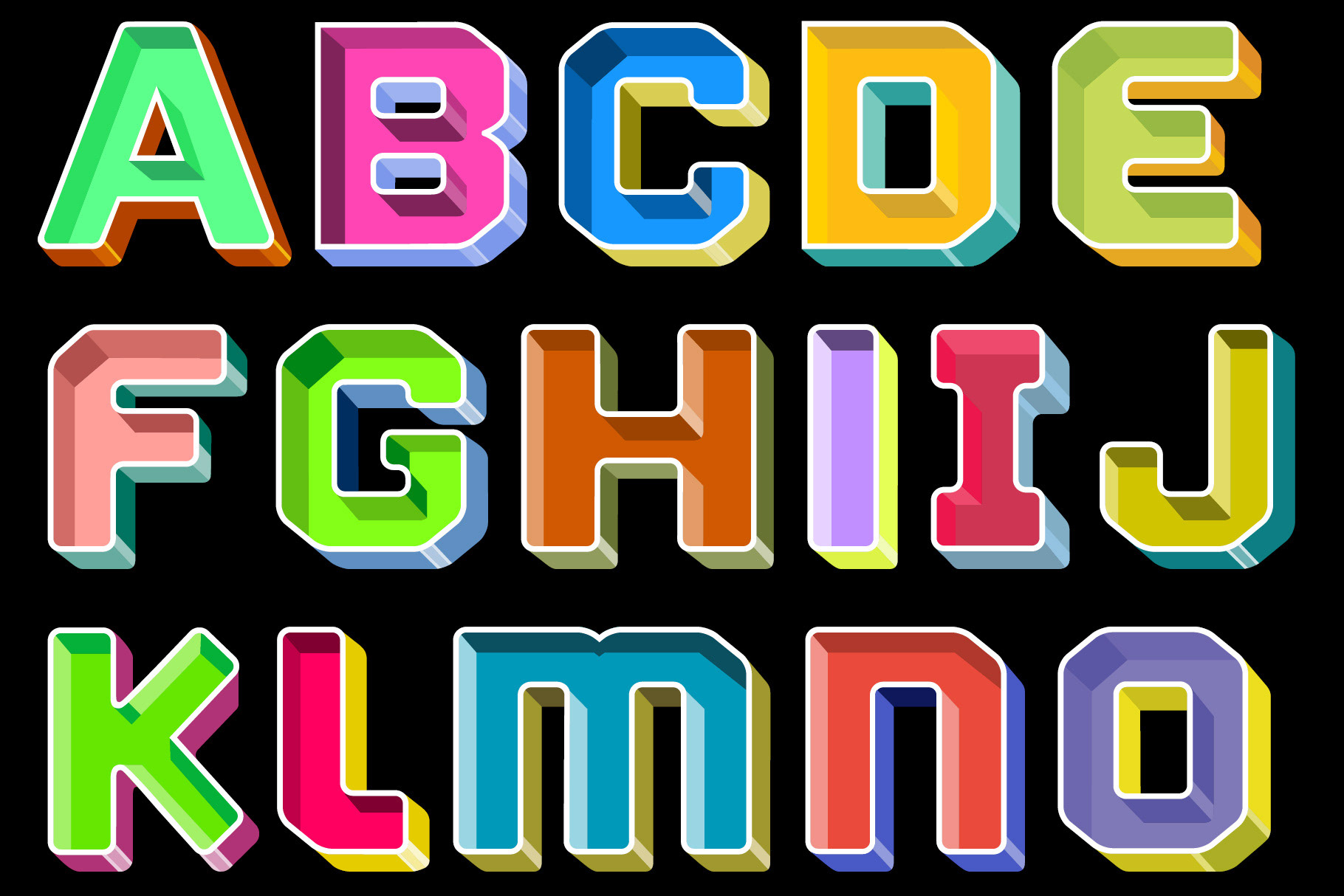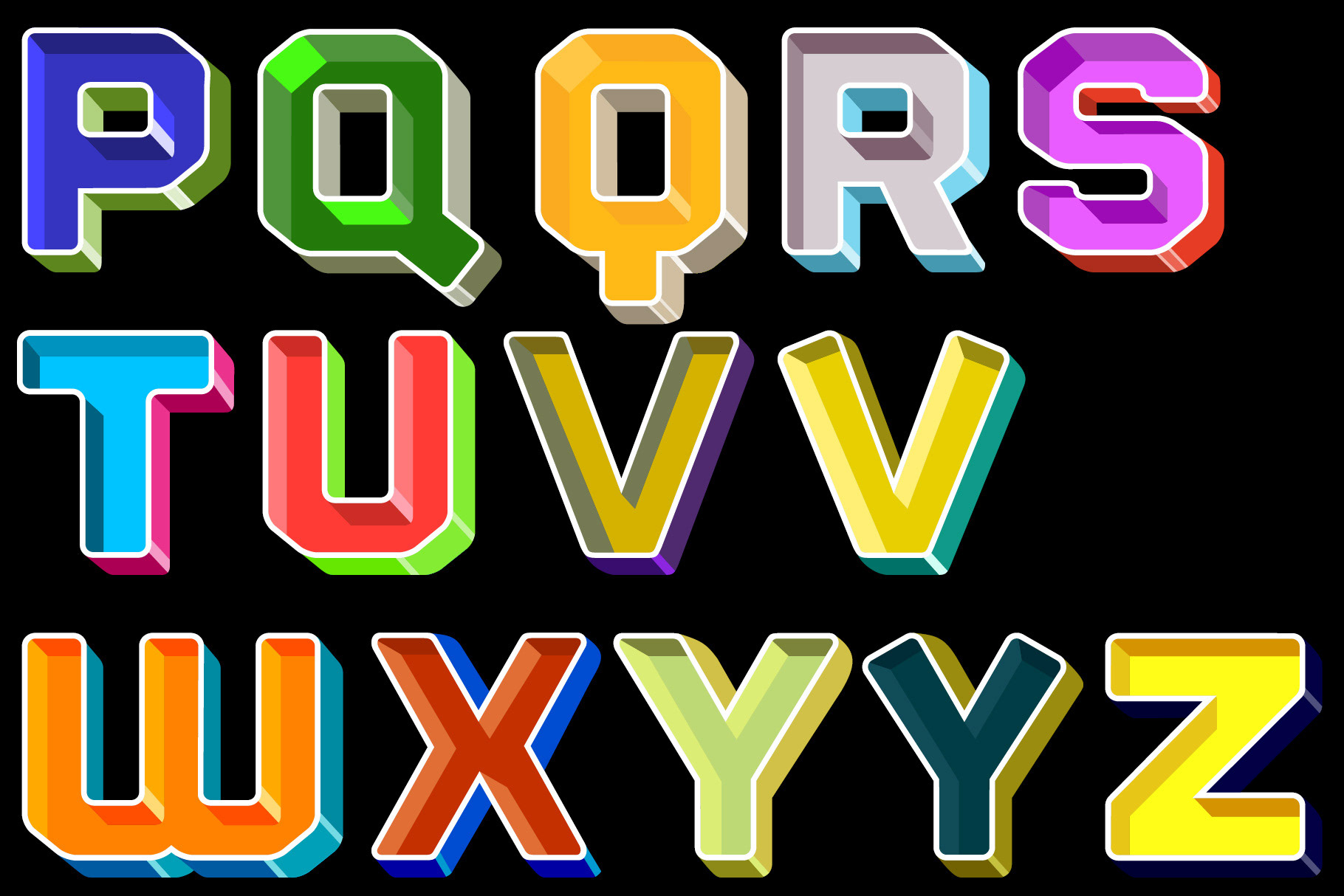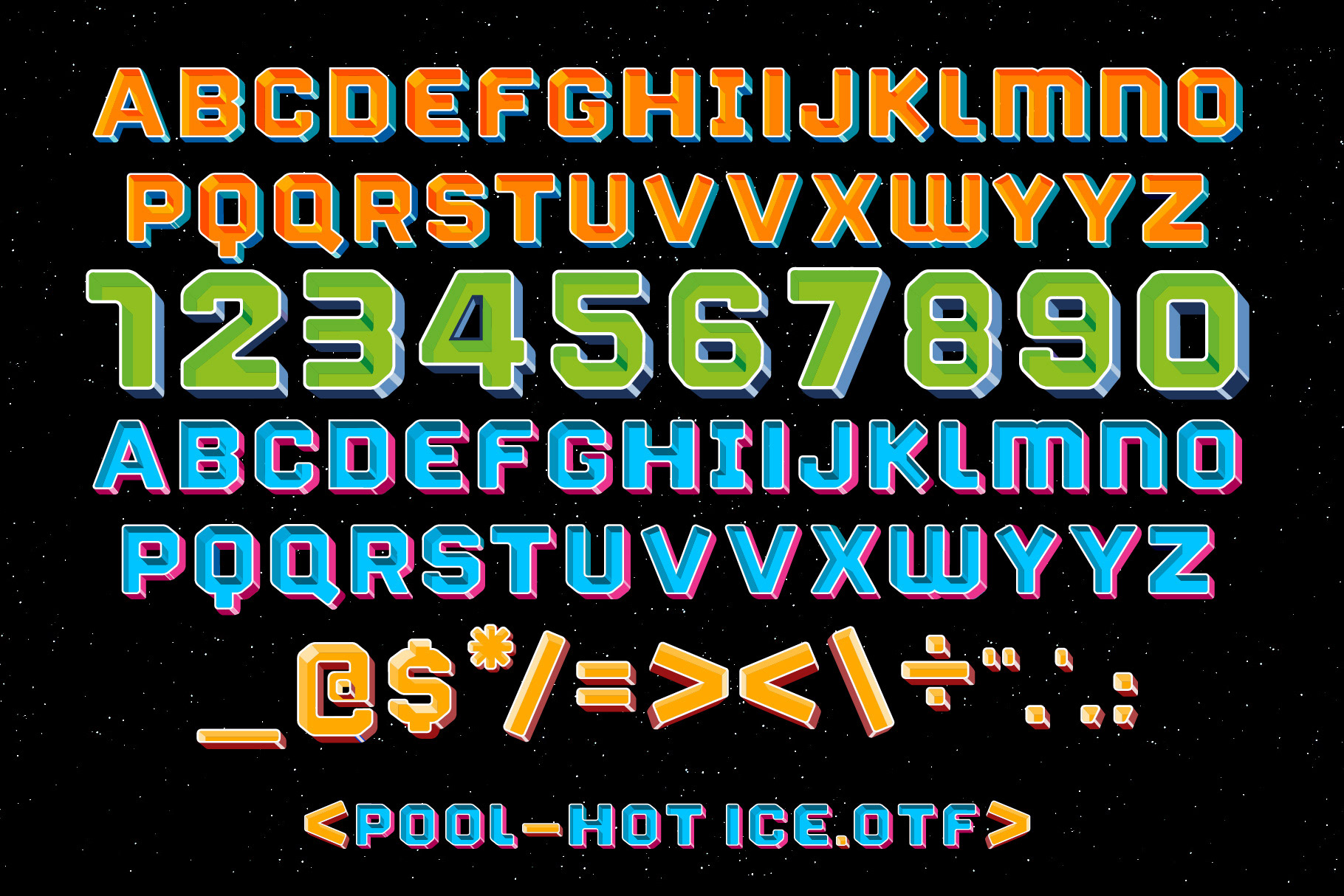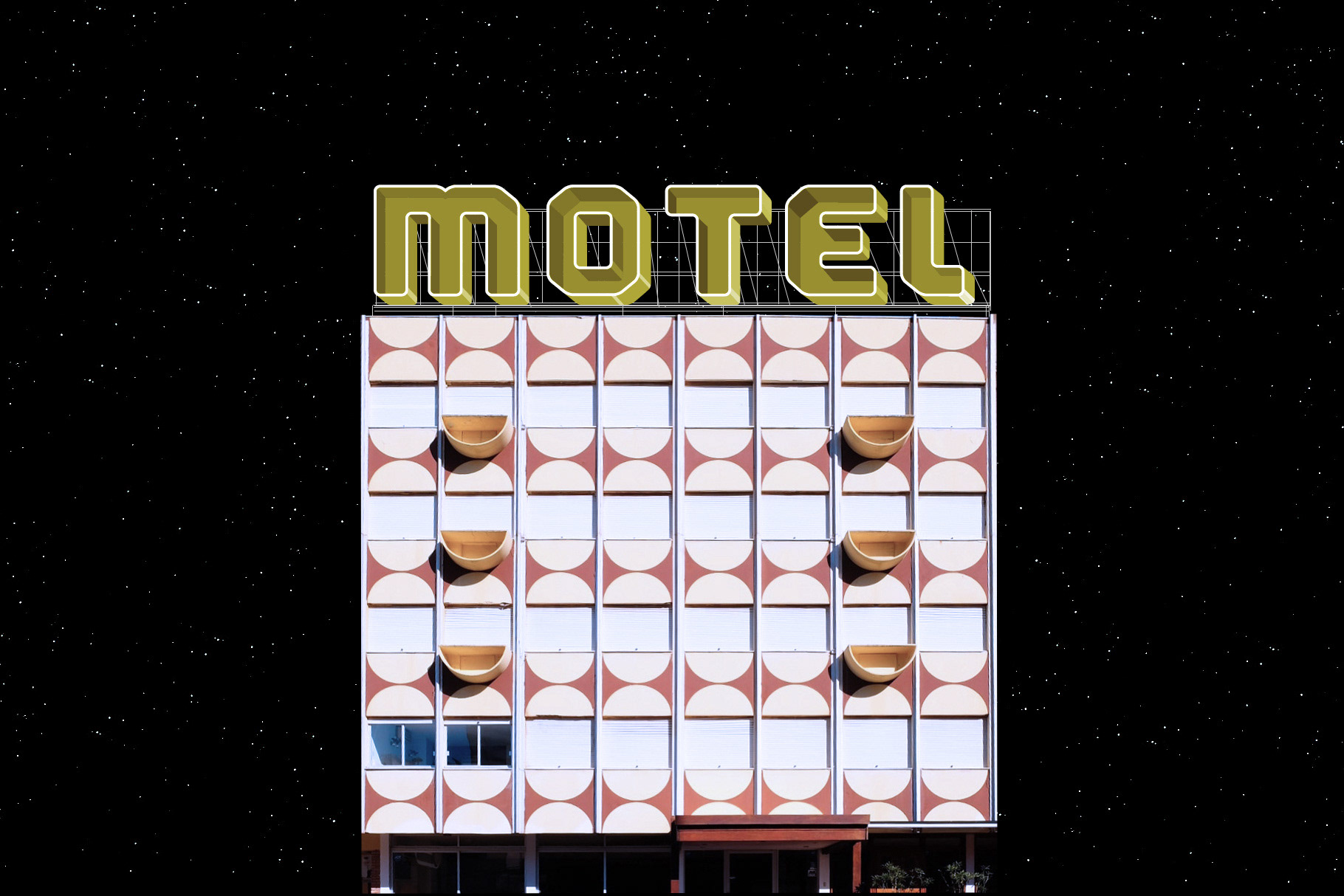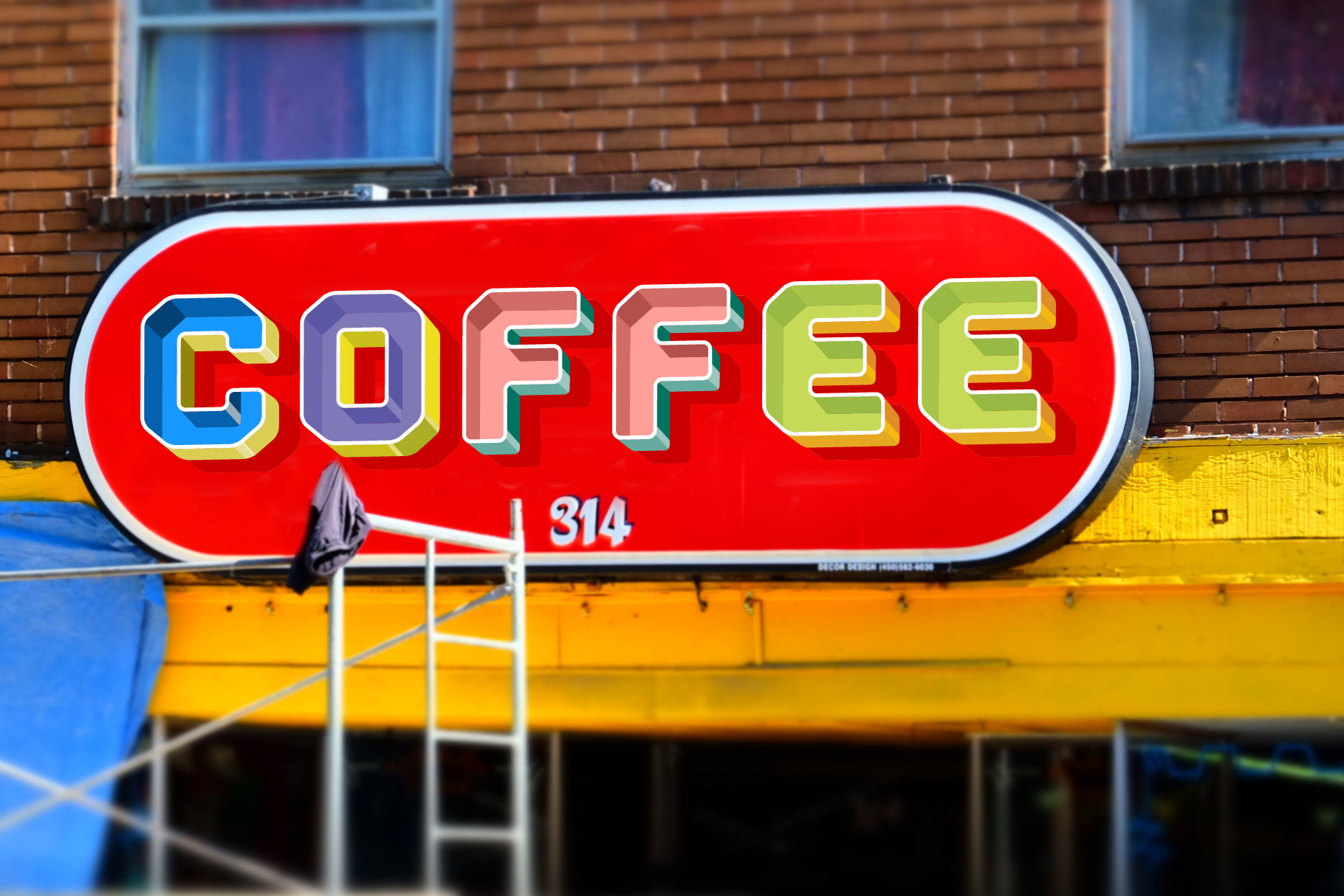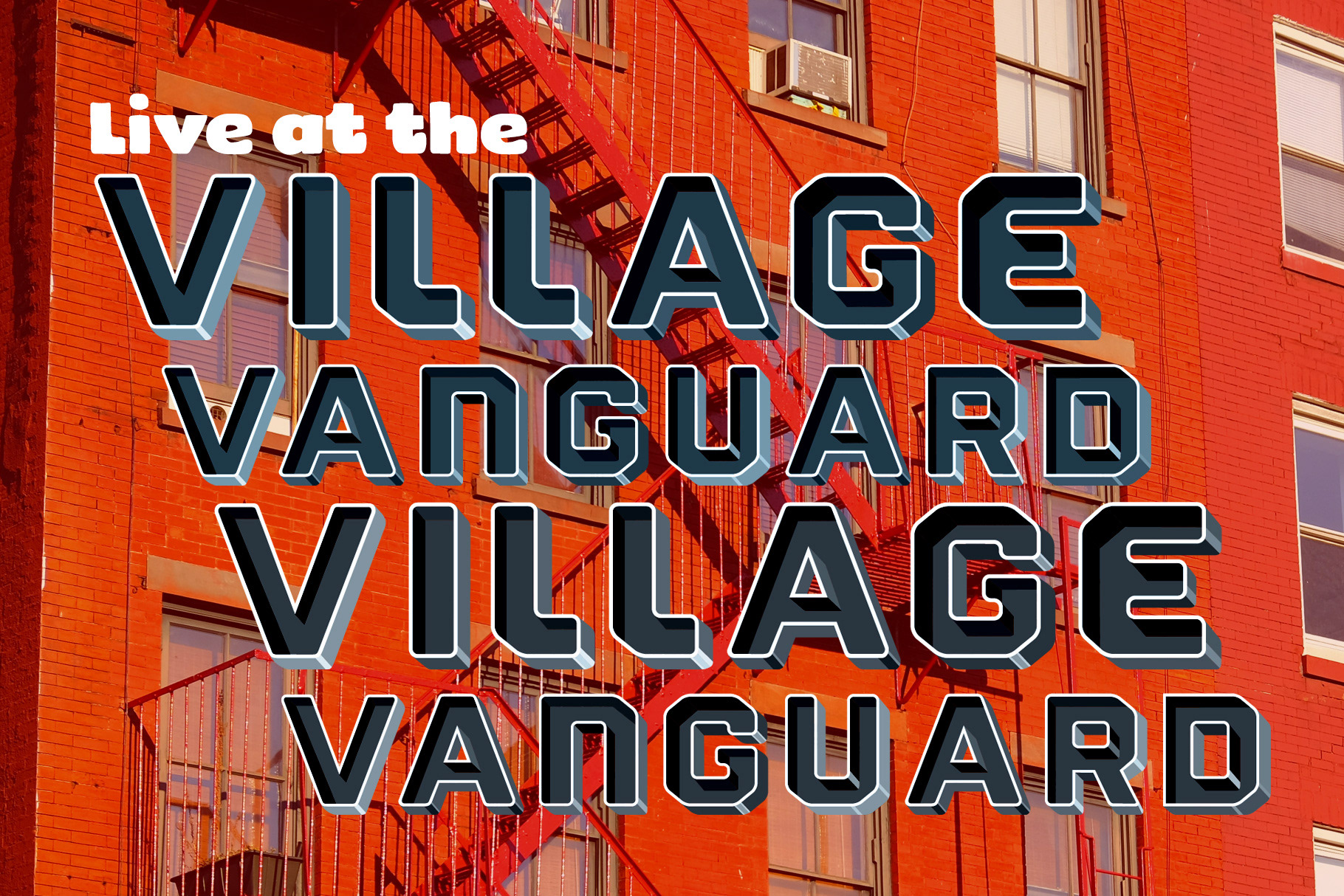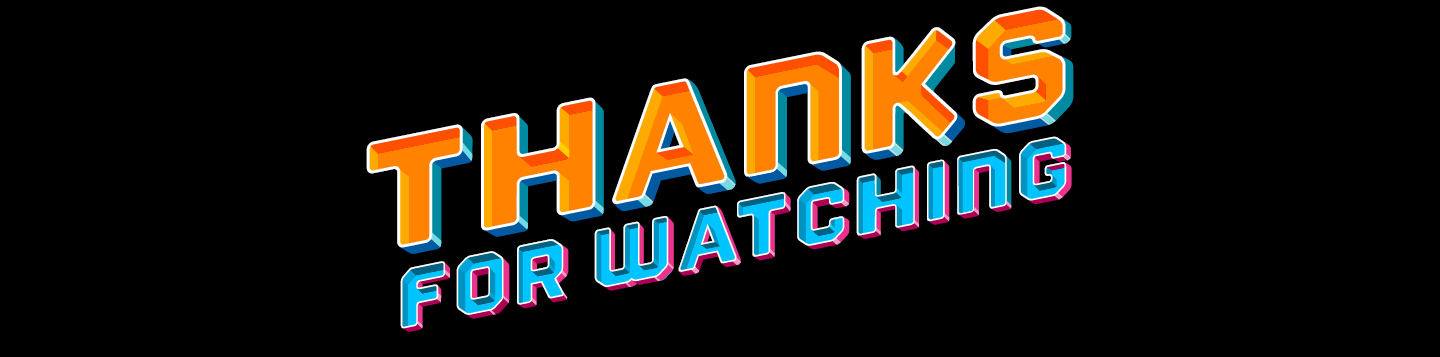
English. Pool was inspired by a lettering done some years ago, where the deepness of the letter shapes remind me from an amazing swimming Pool. Pool is composed by the fonts Pool-Supercolor and Pool-HotIce, both with colors pre defined, it doesn't mean that you can't break the curves using Adobe illustrator and recolor the letters using your own taste. Pool-Supercolor has a lot of combinations of colors for the uppercase and a duotone combination for the lowercase. Pool-HotIce has two combinations of colors, a yellow and blue for lowercase and a pinky blue to lowercase. Symbols, accents and numbers have different combinations too. Just remember Pool is an All caps typeface, I mean that there's only color variations between the lowercase and uppercase glyphs. Take a look at the samples to see the complete character set and all combinations of colors and have fun. For this job I worked with Adobe Illustrator and the plugin Fontself, including Spacing and Kerning. It's an amazing and very useful plugin.
Portuguese. Pool foi inspirada por um lettering que fiz alguns anos atrás, a profundidade das letras me lembraram uma piscina, por isso se chama Pool. A família Pool é composta por duas fontes a Pool-Supercolor e a Pool-HotIce, ambas as fontes tem as cores pre definidas, o que não significa que você não possa criar as suas próprias combinações manipulando os vetores ou mesmo nos ajustes de cor do seu software preferido. A Pool-Supercolor tem um monte, mas um monte mesmo de combinações de cores para a caixa alta, na caixa baixa ela é cinza duotone, a Pool HotIce tem duas combinações de cores, amarelo e azul para caixa alta e magenta e azul na caixa baixa. Só lembrando que a Pool é uma tipografia All Caps, apenas as cores mudam entre caixa alta e baixa. Usei o Illustrator e o plugin Fontself pra este trabalho que achei incrível e super divertido.
English. Pool was inspired by a lettering done some years ago, where the deepness of the letter shapes remind me from an amazing swimming Pool. Pool is composed by the fonts Pool-Supercolor and Pool-HotIce, both with colors pre defined, it doesn't mean that you can't break the curves using Adobe illustrator and recolor the letters using your own taste. Pool-Supercolor has a lot of combinations of colors for the uppercase and a duotone combination for the lowercase. Pool-HotIce has two combinations of colors, a yellow and blue for lowercase and a pinky blue to lowercase. Symbols, accents and numbers have different combinations too. Just remember Pool is an All caps typeface, I mean that there's only color variations between the lowercase and uppercase glyphs. Take a look at the samples to see the complete character set and all combinations of colors and have fun. For this job I worked with Adobe Illustrator and the plugin Fontself, including Spacing and Kerning. It's an amazing and very useful plugin.
Portuguese. Pool foi inspirada por um lettering que fiz alguns anos atrás, a profundidade das letras me lembraram uma piscina, por isso se chama Pool. A família Pool é composta por duas fontes a Pool-Supercolor e a Pool-HotIce, ambas as fontes tem as cores pre definidas, o que não significa que você não possa criar as suas próprias combinações manipulando os vetores ou mesmo nos ajustes de cor do seu software preferido. A Pool-Supercolor tem um monte, mas um monte mesmo de combinações de cores para a caixa alta, na caixa baixa ela é cinza duotone, a Pool HotIce tem duas combinações de cores, amarelo e azul para caixa alta e pinky e azul na caixa baixa. Só lembrando que a Pool é uma tipografia All Caps, apenas as cores mudam entre caixa alta e baixa. Usei o Illustrator e o plugin Fontself pra este trabalho que achei incrível e super divertido.